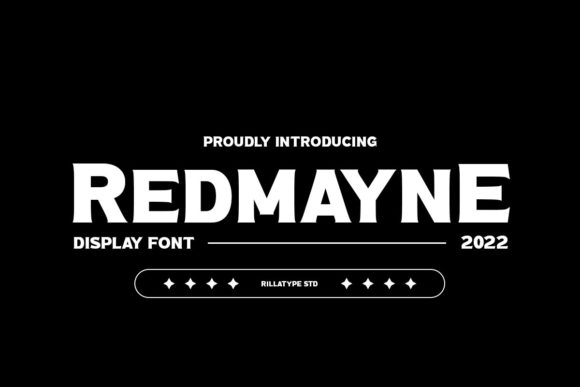
Get ready to unleash the power of Redmayne, a display font that demands attention and captivates audiences with its bold and assertive presence. This remarkable font family, crafted by the talented Rillatype, is a masterpiece designed to elevate your designs to new heights.
Redmayne's striking, imposing character exudes confidence and authority, making it the perfect choice for branding, packaging, logo design, headlines, and any project that demands a bold statement. Its strong, sharp lines create a captivating visual impact that draws the eye and leaves a lasting impression.
With Redmayne as your design ally, you'll command attention and make your ideas shine. Its carefully crafted letterforms and purposeful details ensure that your message will stand out from the crowd, captivating your audience and leaving them in awe.
Whether you're a seasoned designer or just starting your creative journey, Redmayne is the font that will ignite your passion and empower you to create designs that resonate with your audience. Embrace the boldness of Redmayne and unleash your creativity!